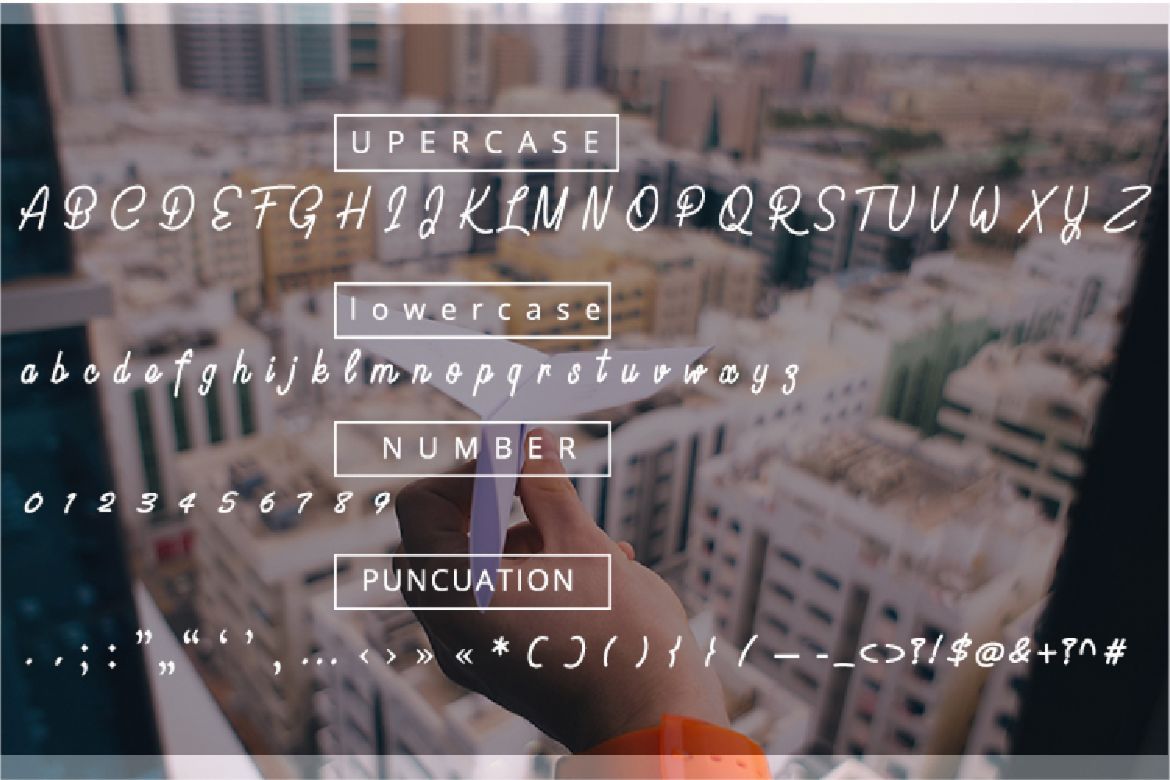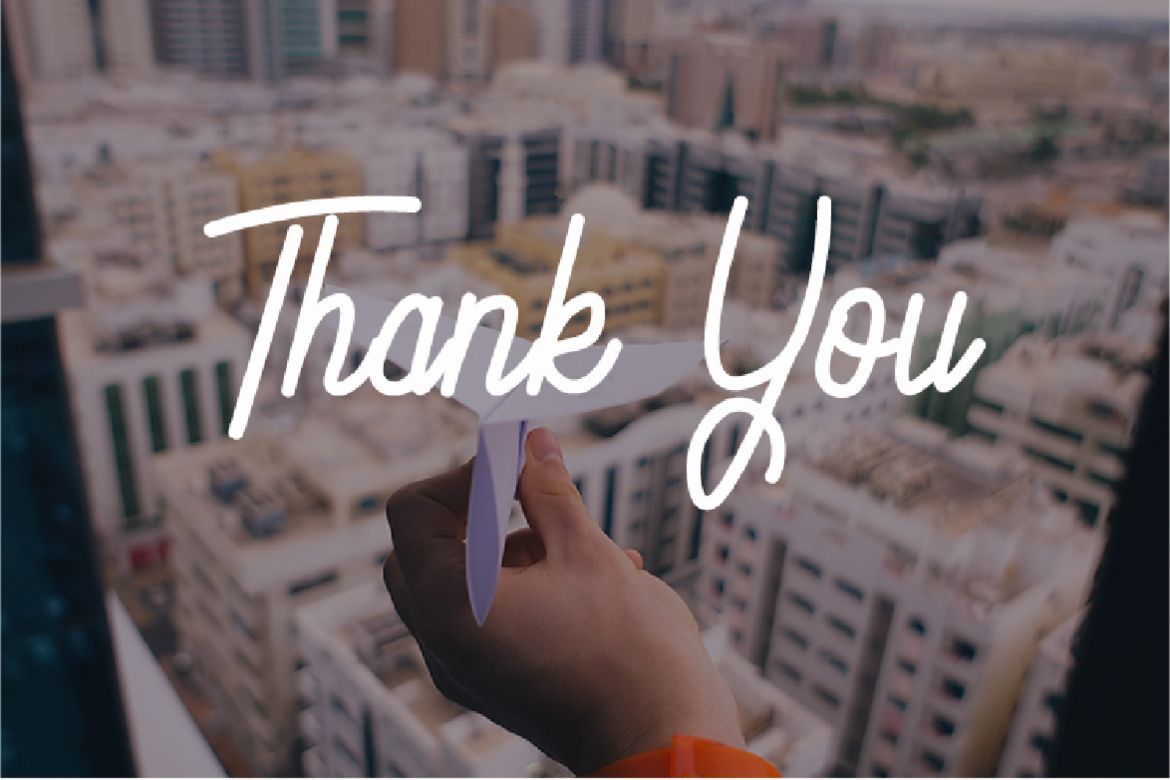
Beauty Flawless - Script Font
Beauty Flawless is script and handwritten font. This font is perfect for your any project such as wedding invitation design, cover book design, poster, flyer design, typography, etc.
• perfect for any design project.
• simple